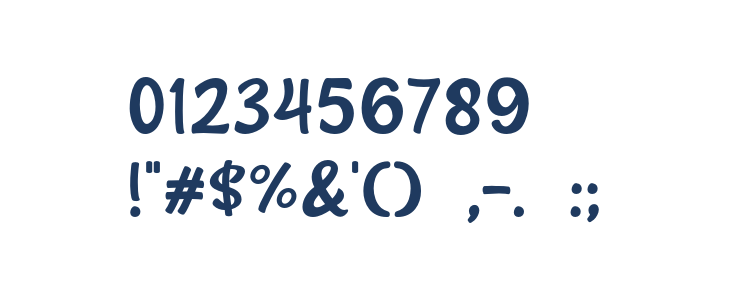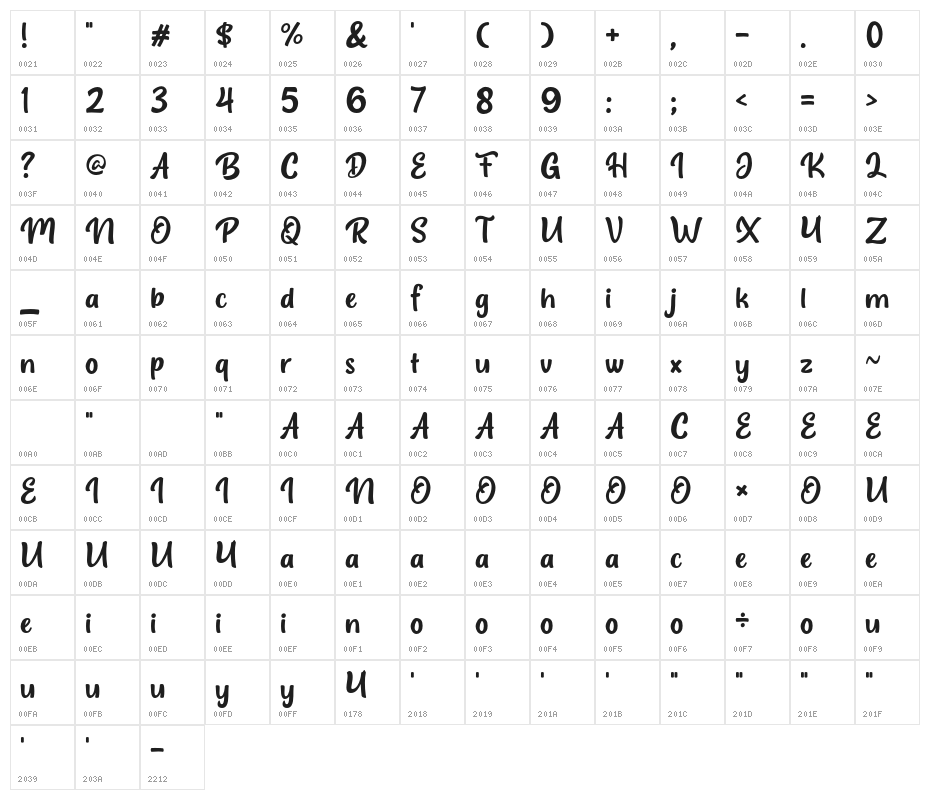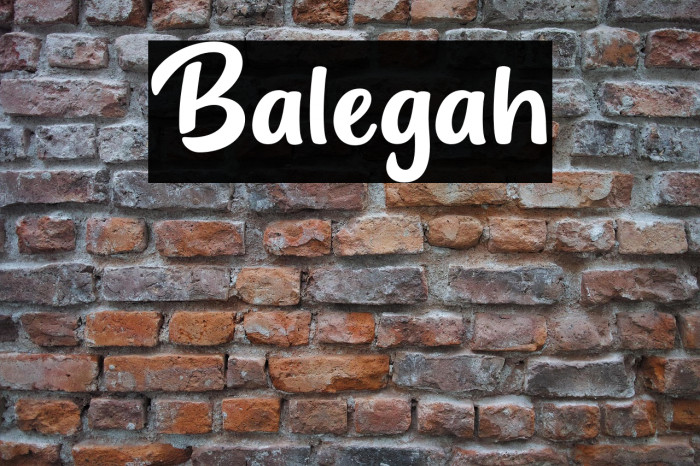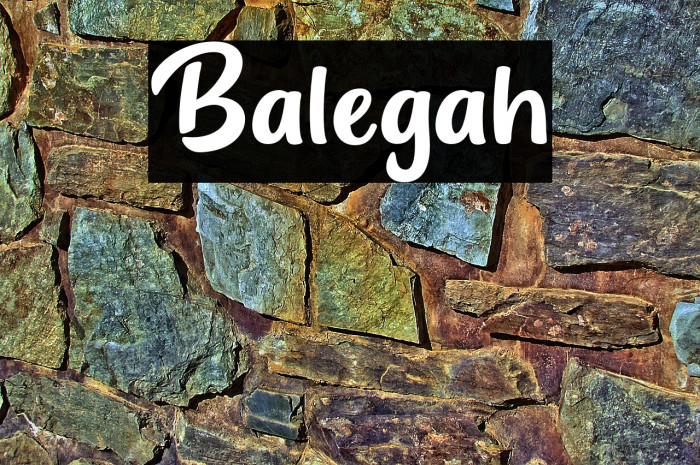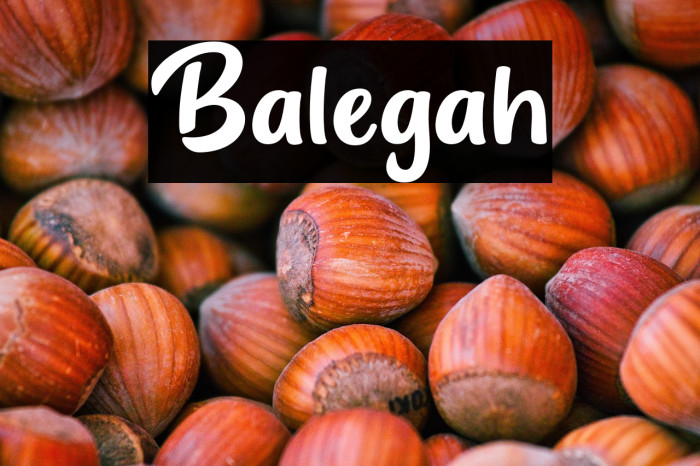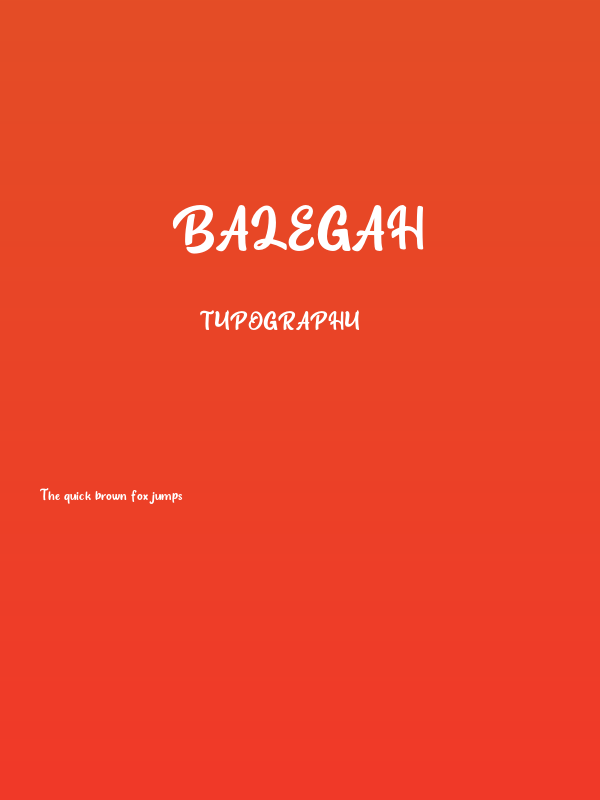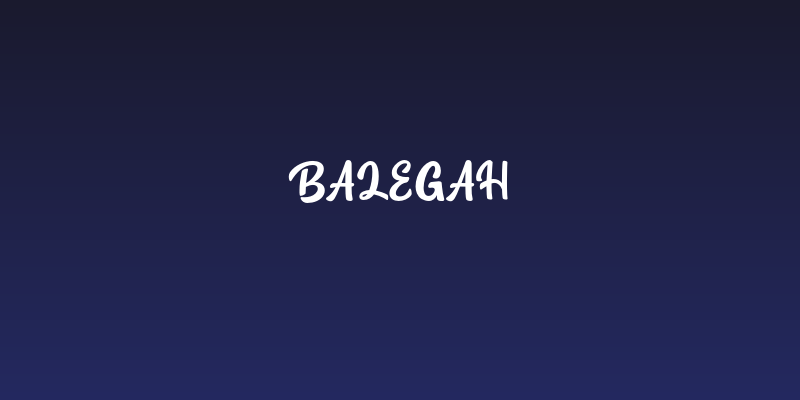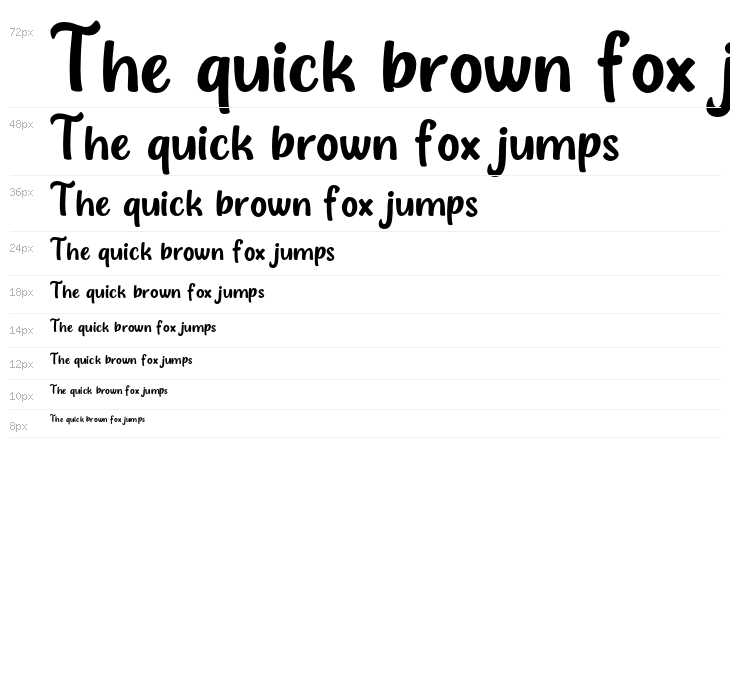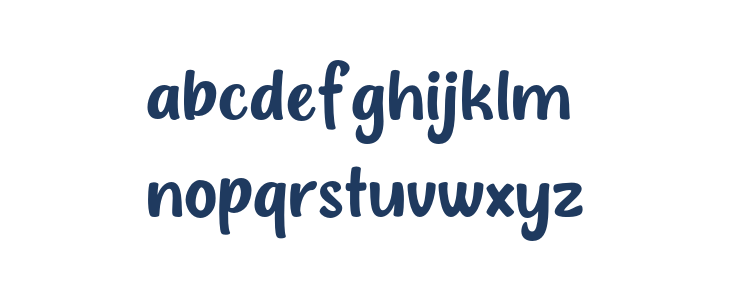
Balegah Font
Balegah Description
This font features a playful and bold script style with a handwritten feel. The characters are rounded and slightly slanted, giving a casual and friendly appearance. The uppercase letters are distinct with unique flourishes, while the lowercase letters maintain a consistent flow. The numerals are bold and easily readable, complementing the overall style. Special characters are well-integrated, maintaining the font's cohesive look. This font's design is suitable for projects that require a touch of personality and approachability.
| Proposed Projects | Ideal for greeting cards, playful branding, children's books, and social media graphics. |